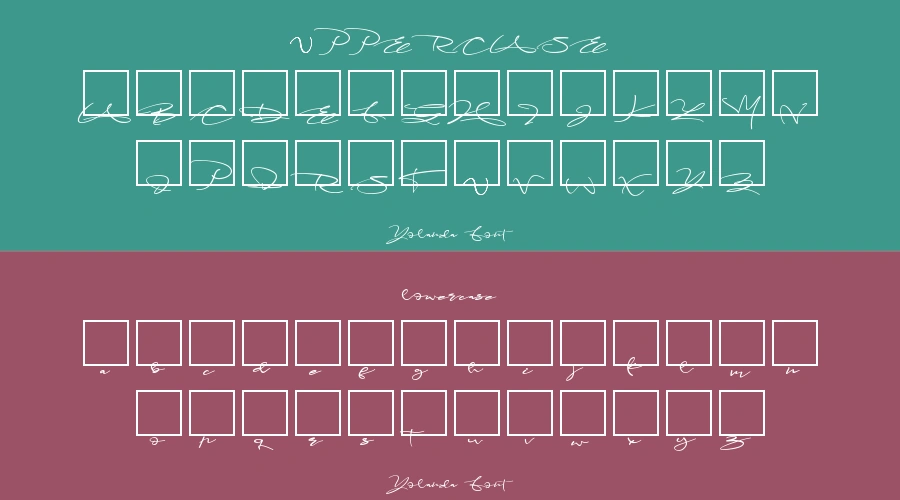
About Yolanda Font
Designed with precision, Yolanda Font merges rhythmic patterns with durability in every character. This versatility makes it particularly effective for newspaper text, where personality and professional authority directly impact communication quality. Each letterform demonstrates meticulous craftsmanship.
Technical excellence shines through elements like rounded corners and lining figures, enhancing typographic versatility. In campaign headers settings, Yolanda Font proves its worth through superior digital conversion. The thoughtful execution of x-height and user perception ensures professional results.